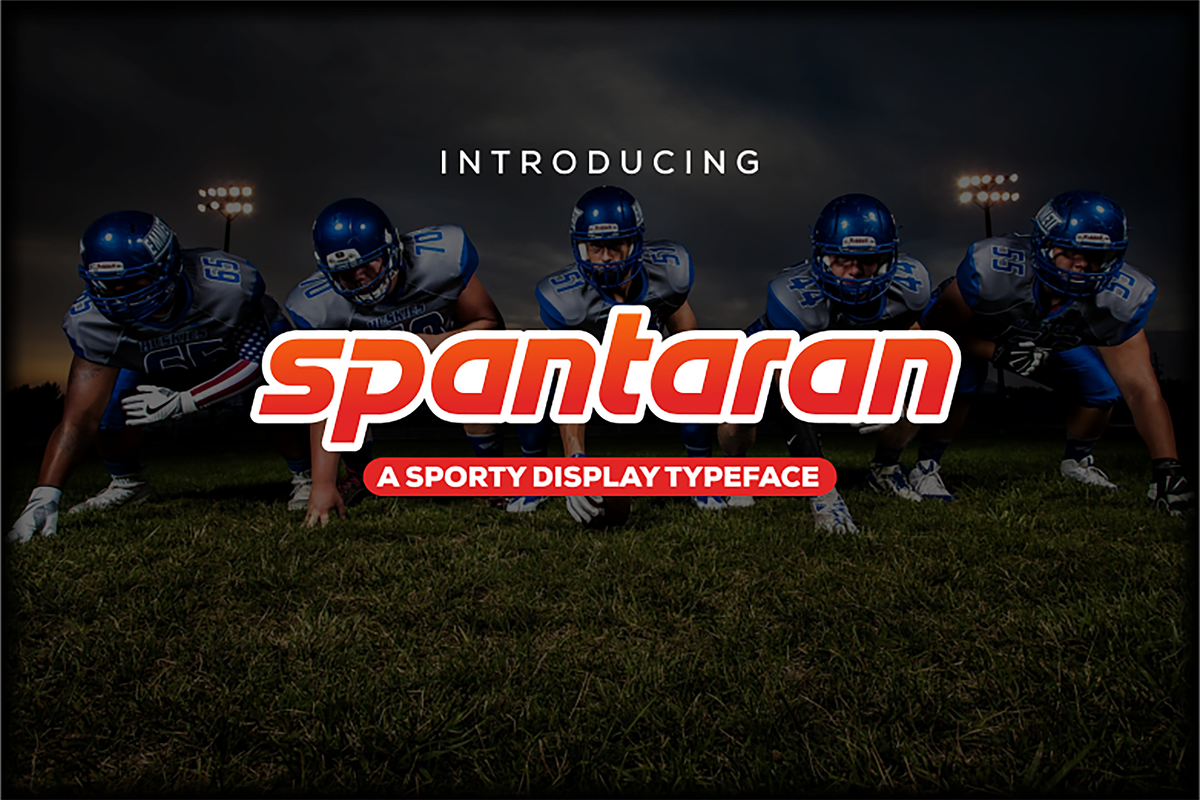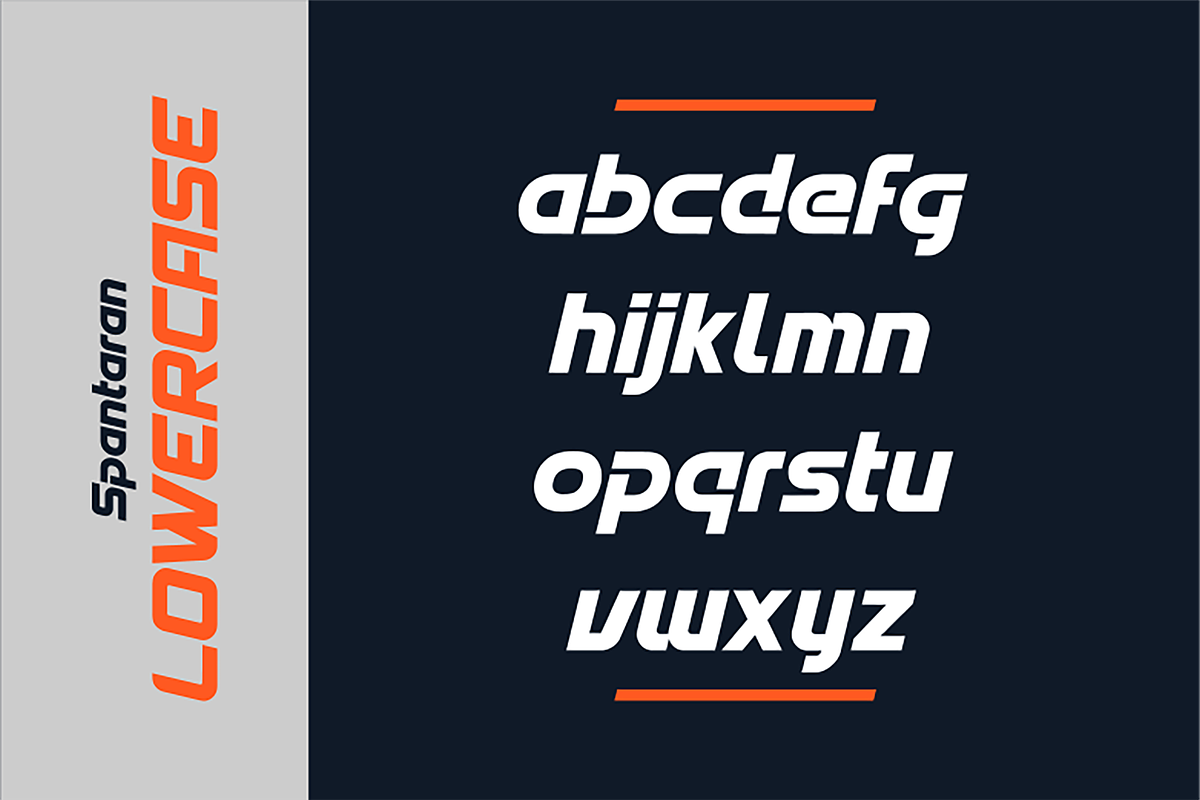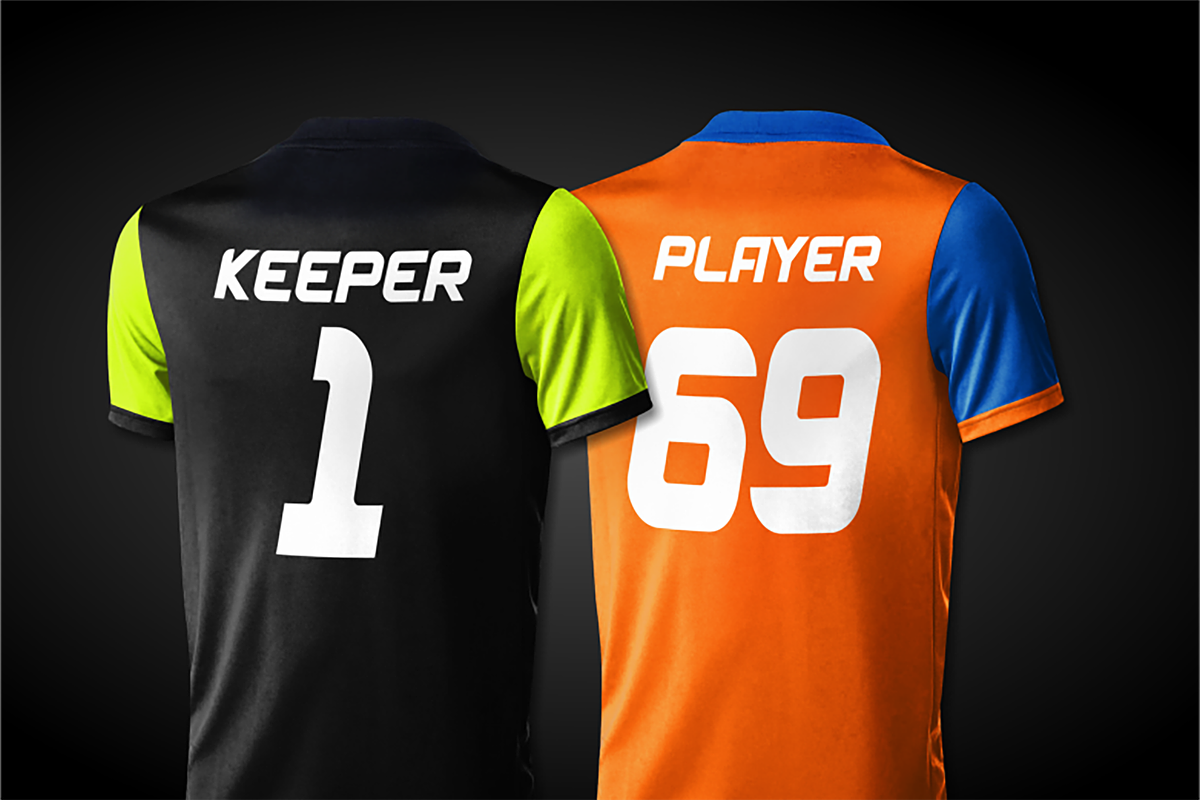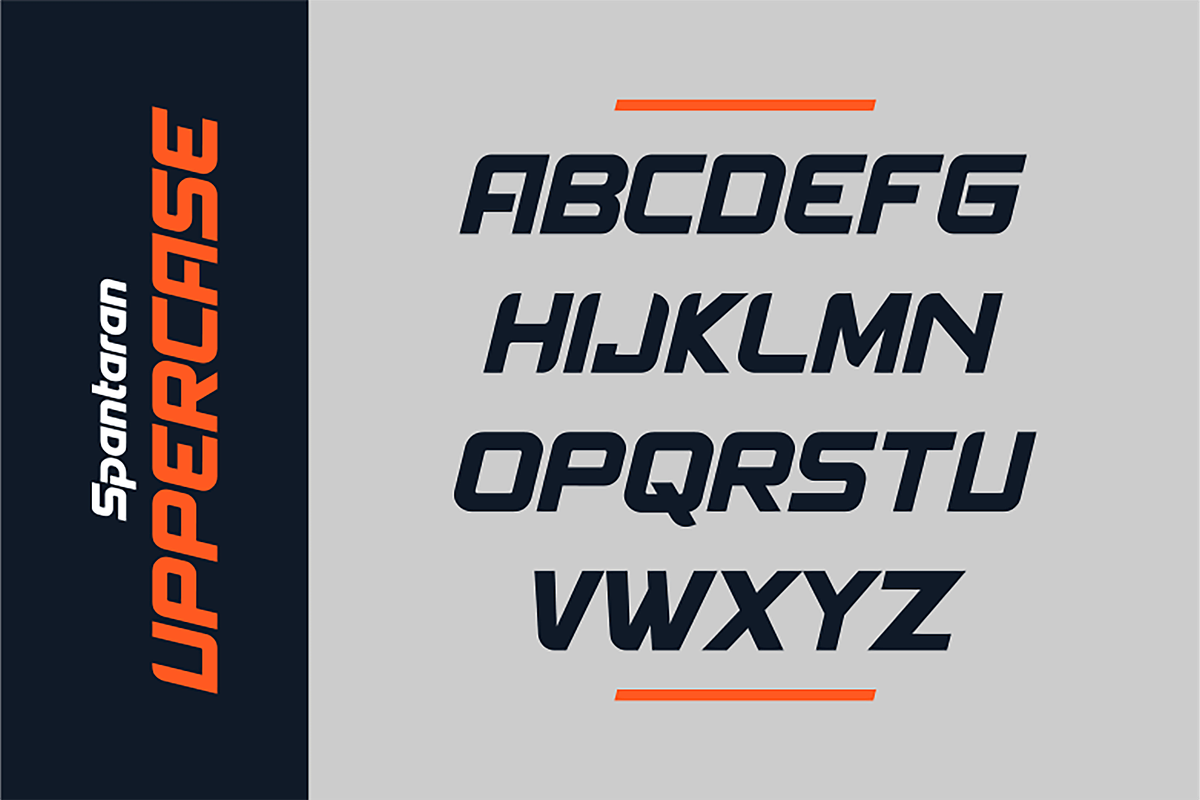
Spantaran – A Sporty Display Typefac
Spantaran is a sporty display typeface which is very suitable for logos, titles, player names on the jersey, and more. It was made with italic & bold characters which gives it a strong feel. Crafted with precision and creativity in mind, this font is a perfect fusion of elegance and boldness, designed to make your headlines, logos, posters, and branding projects stand out. It was made with bold characters which gives it a strong feel.